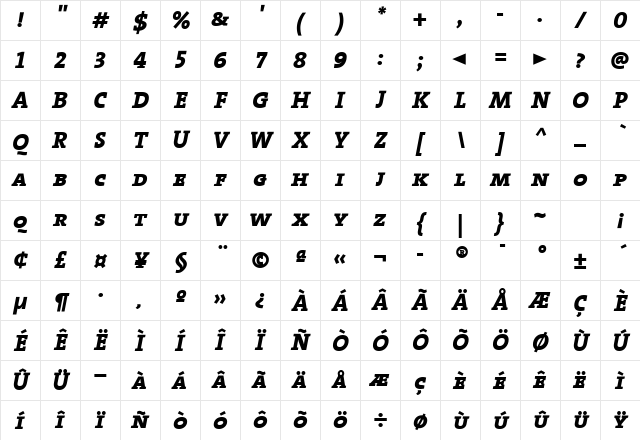
The Serif Extra Bold- ExtraBold Italic Free Font
The Serif Extra Bold- ExtraBold Italic
Style: ExtraBold Italic
Design Context for The Serif Extra Bold-
The Serif Extra Bold- carries the refined structure of traditional serif typography, with bracketed terminals and considered proportions that communicate credibility and craft. The slanted form adds forward momentum and visual energy. Its bold stroke weight gives it real presence on the page.